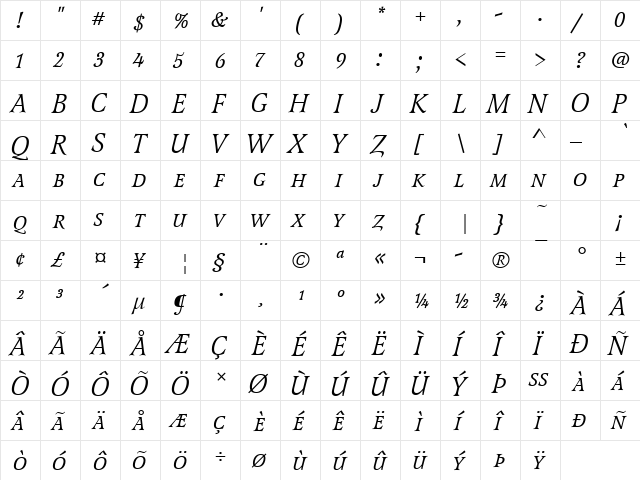
Latienne Becker Discaps Italic
Design Context for Latienne Becker Discaps Typeface
Latienne Becker Discaps offers clean, dependable letterforms without strong stylistic allegiance, making it a practical choice for designers who need flexibility. The dynamic lean of this cut emphasises speed and emphasis in any layout.
Pro Tip: Try Latienne Becker Discaps for annotation and caption copy alongside an upright companion — the contrast in angle creates a dynamic but ordered typographic system.